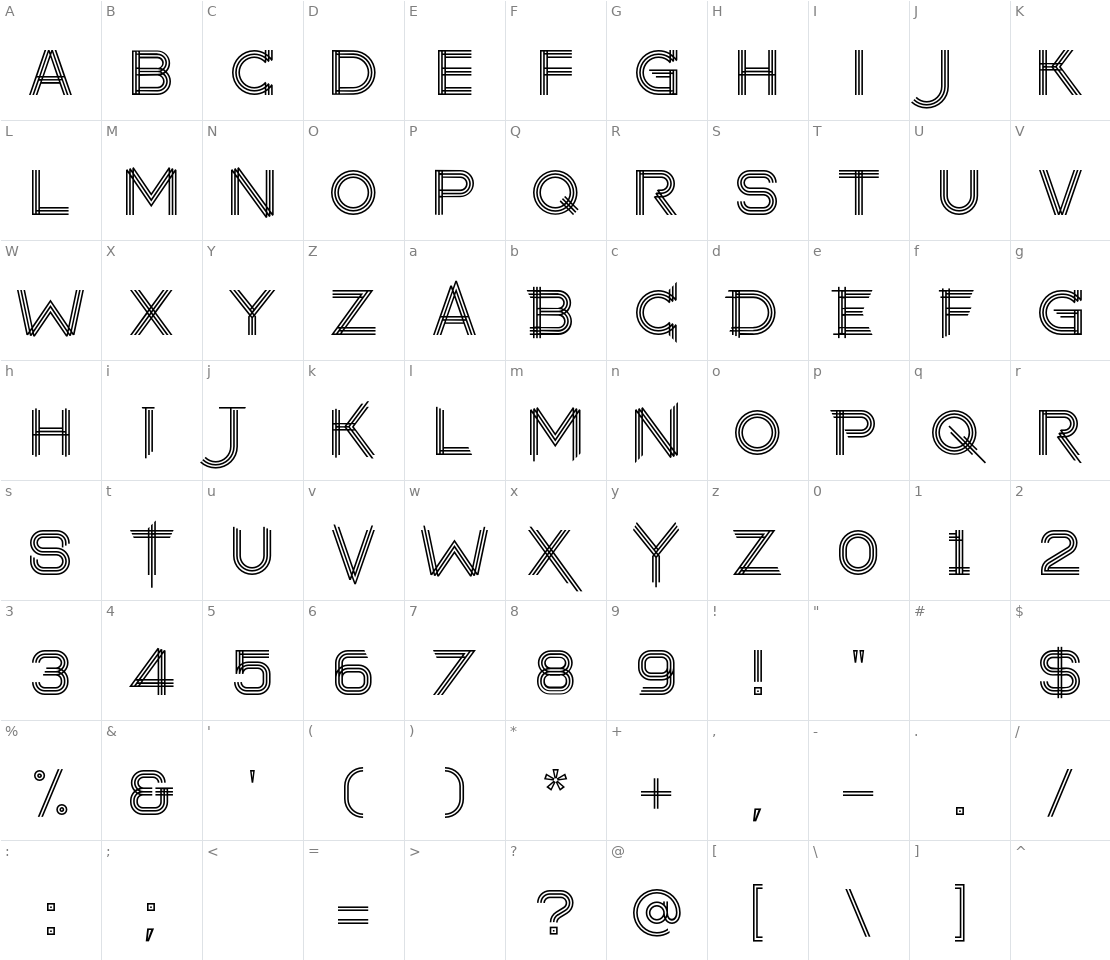
Makayla
Makayla is a decorative uppercase display face by dondon nillo, built from inline stripes that give each letterform a layered, linear texture. The geometric structure and repeating horizontal lines recall art deco signage and architectural lettering, where pattern and precision were inseparable. Best at large sizes for headlines, posters, and branding where that striped detailing has room to register.